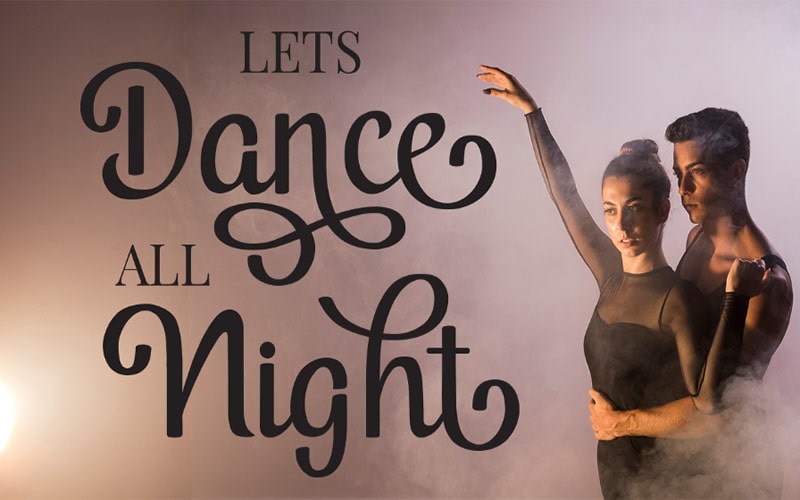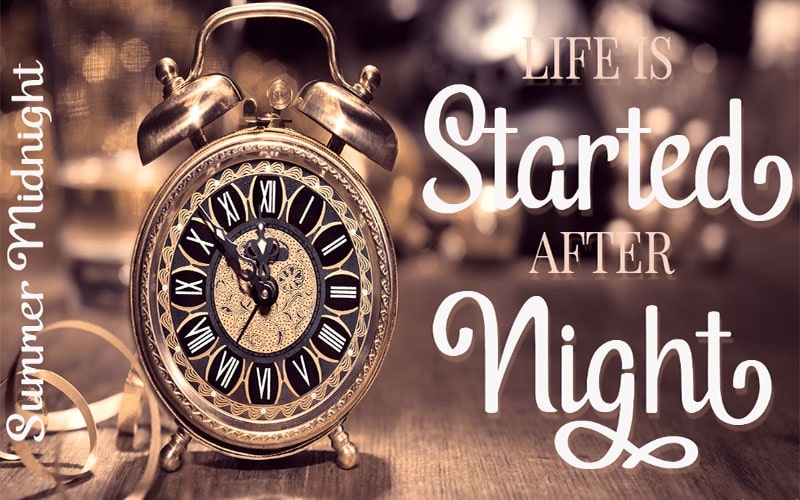
Summer Midnight Font is a sophisticated and captivating typeface that evokes the serene beauty of a summer night. Designed by the talented typographer Laura Worthington.
This font combines elegant script with a touch of mystique, making it an ideal choice for designers seeking to add a unique and enchanting aesthetic to their projects.
Laura Worthington, a renowned type designer known for her exquisite and expressive fonts, is the creative force behind Summer Midnight Font.
Worthington’s work often reflects a deep appreciation for calligraphy and hand-lettering, and with Summer Midnight, she has crafted a typeface that beautifully balances elegance and mystery.
Summer Midnight Font
Summer Midnight Font is available in a single, highly stylized form that emphasizes fluid, cursive lines with a delicate, hand-lettered feel. This makes it particularly suitable for invitation, branding, editorial, and web designs.
Summer Midnight features fluid, cursive letterforms with elegant swashes and delicate flourishes, creating a refined and enchanting appearance.